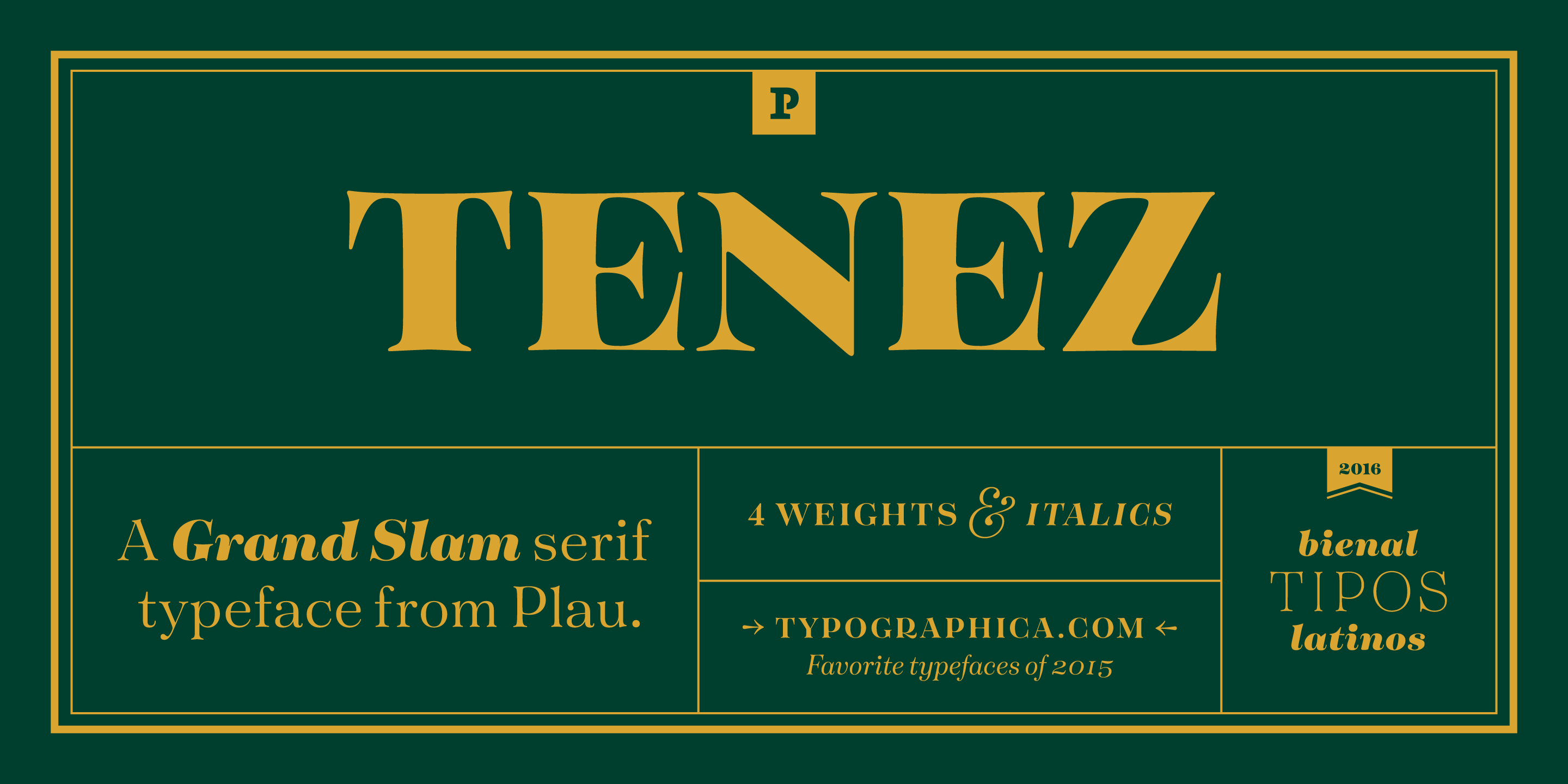
Tenez Font is a sophisticated serif typeface that brings elegance and personality to your designs. Ideal for editorial work, branding, invitations, and packaging, it blends classic style with a modern twist.
What makes Tenez Font Free Download so exciting is its delicate serifs and smooth strokes, which add a refined and artistic touch to any project, making your work stand out with grace.
The Tenez Font family typically includes Regular, Italic, and Bold styles, giving designers flexibility to create beautiful typographic hierarchies.
Whether you’re crafting book covers, logos, or luxury packaging, Tenez Font Free Download offers a timeless appeal that elevates your creative vision.